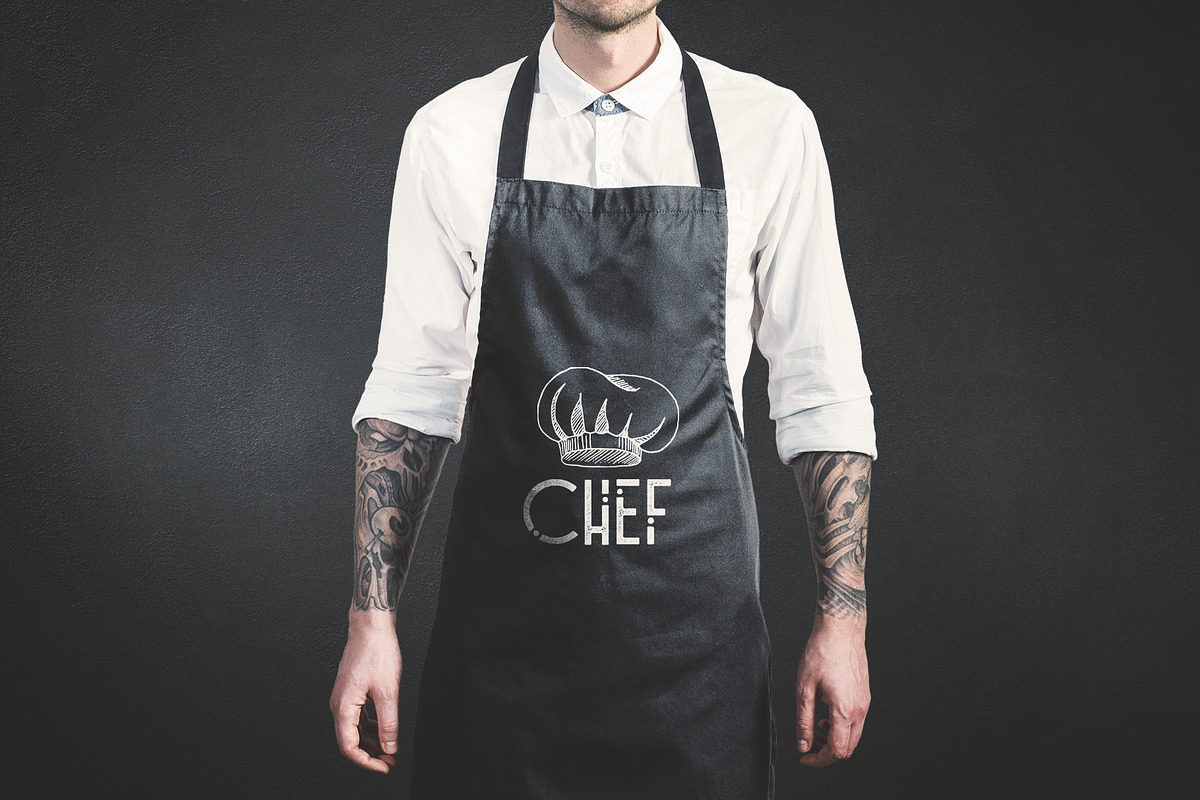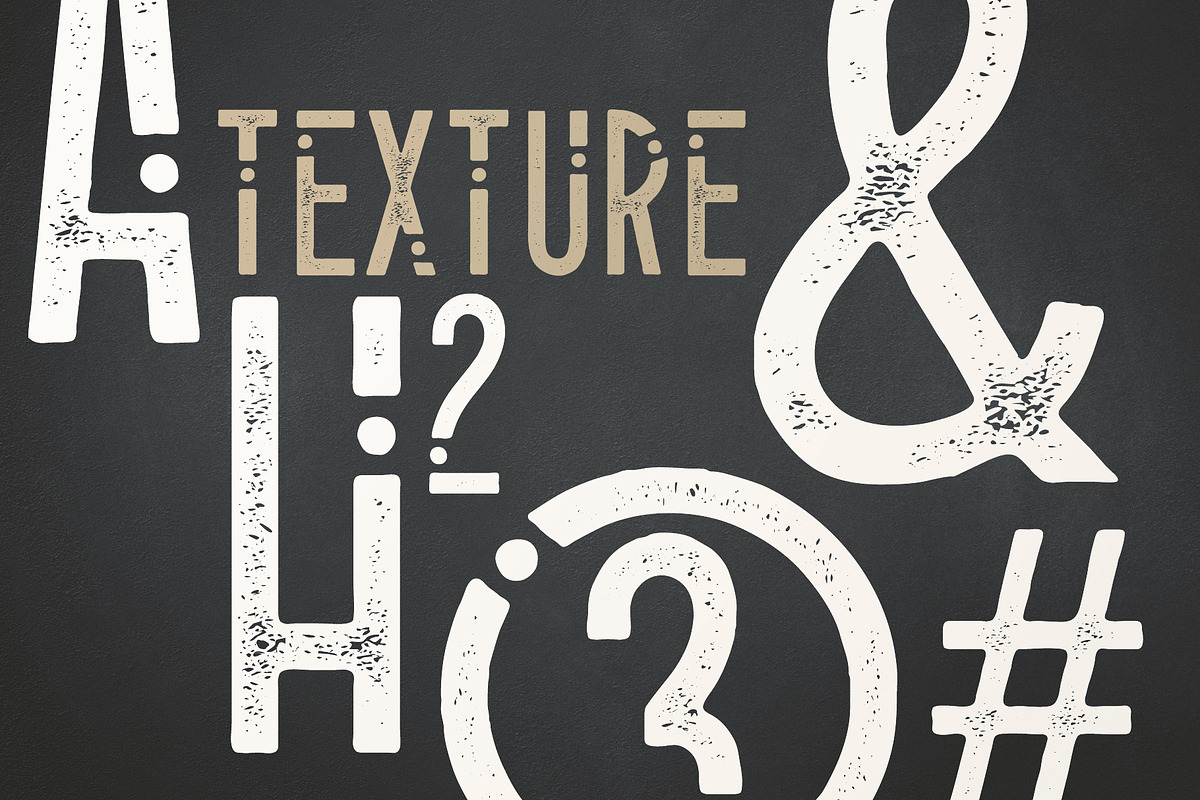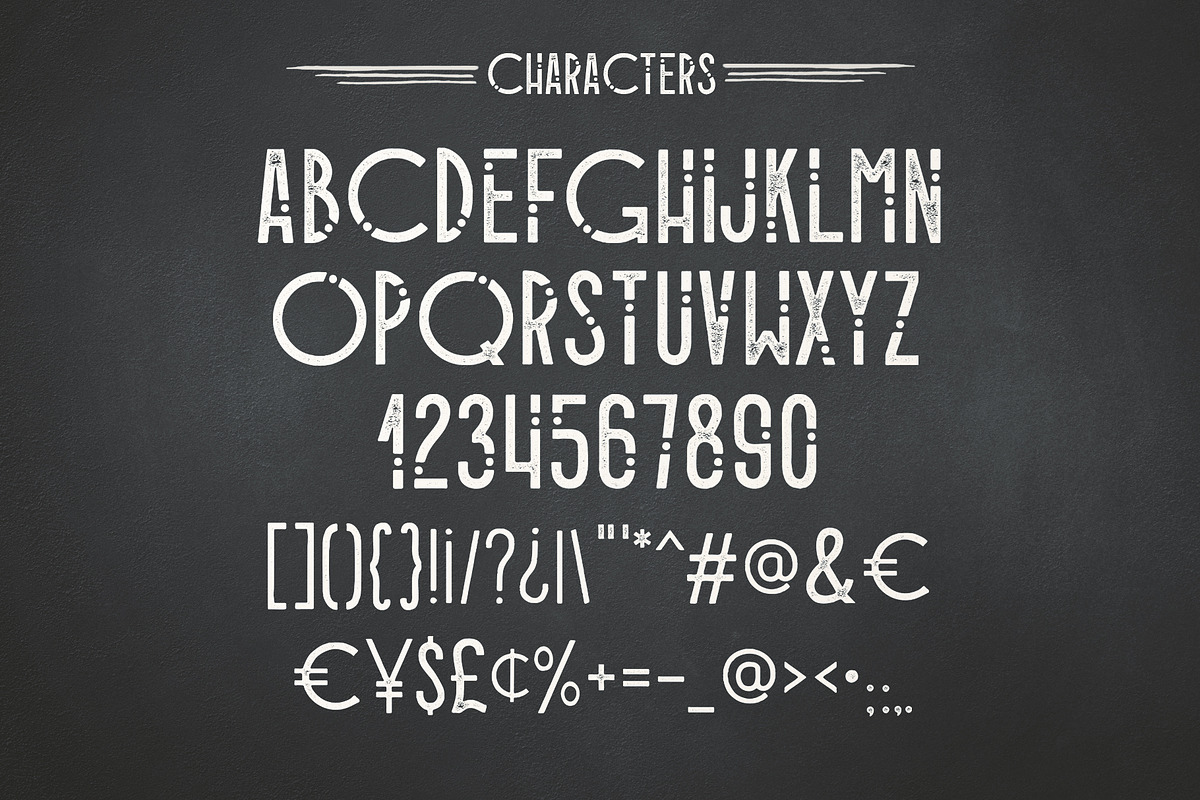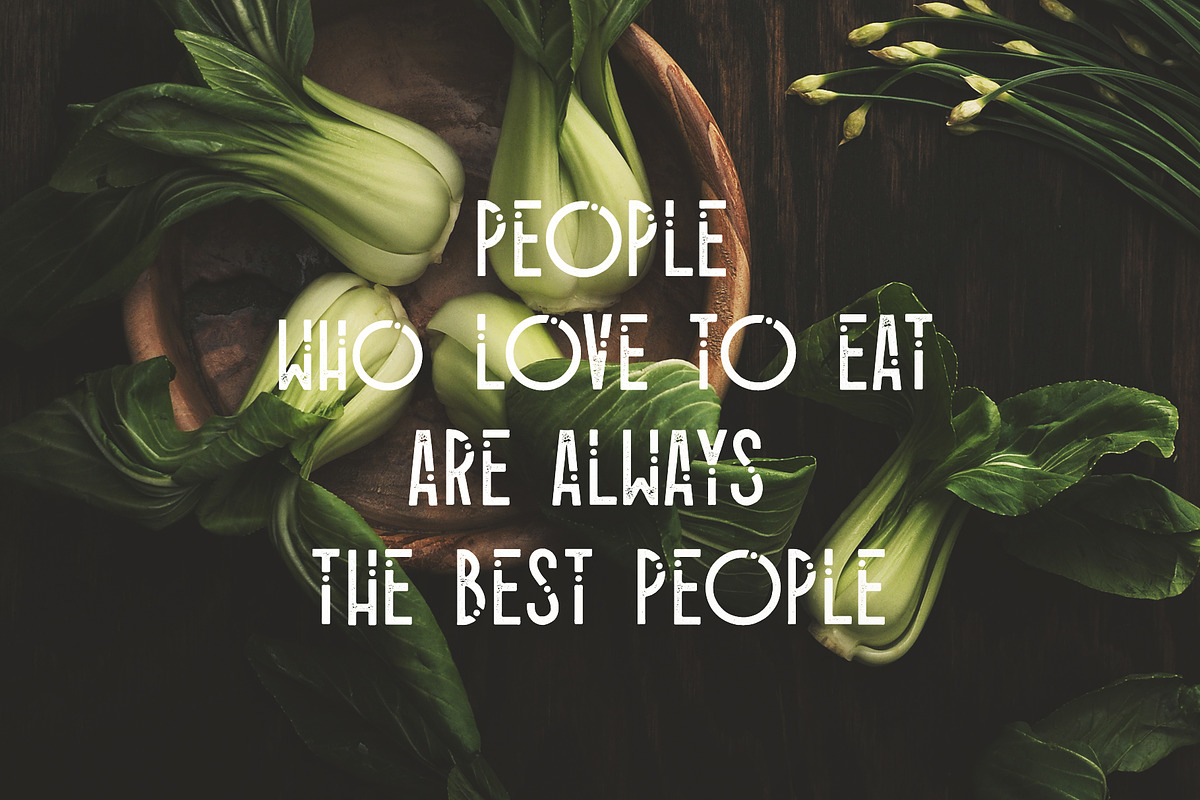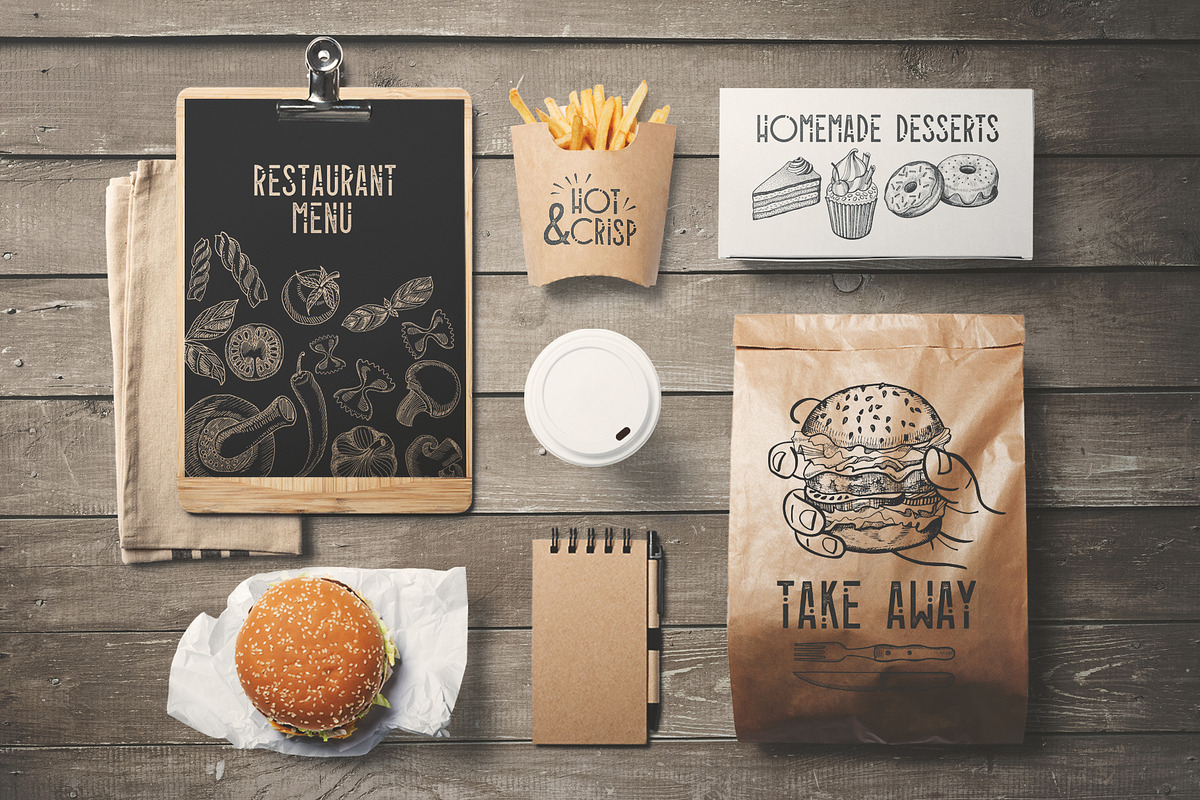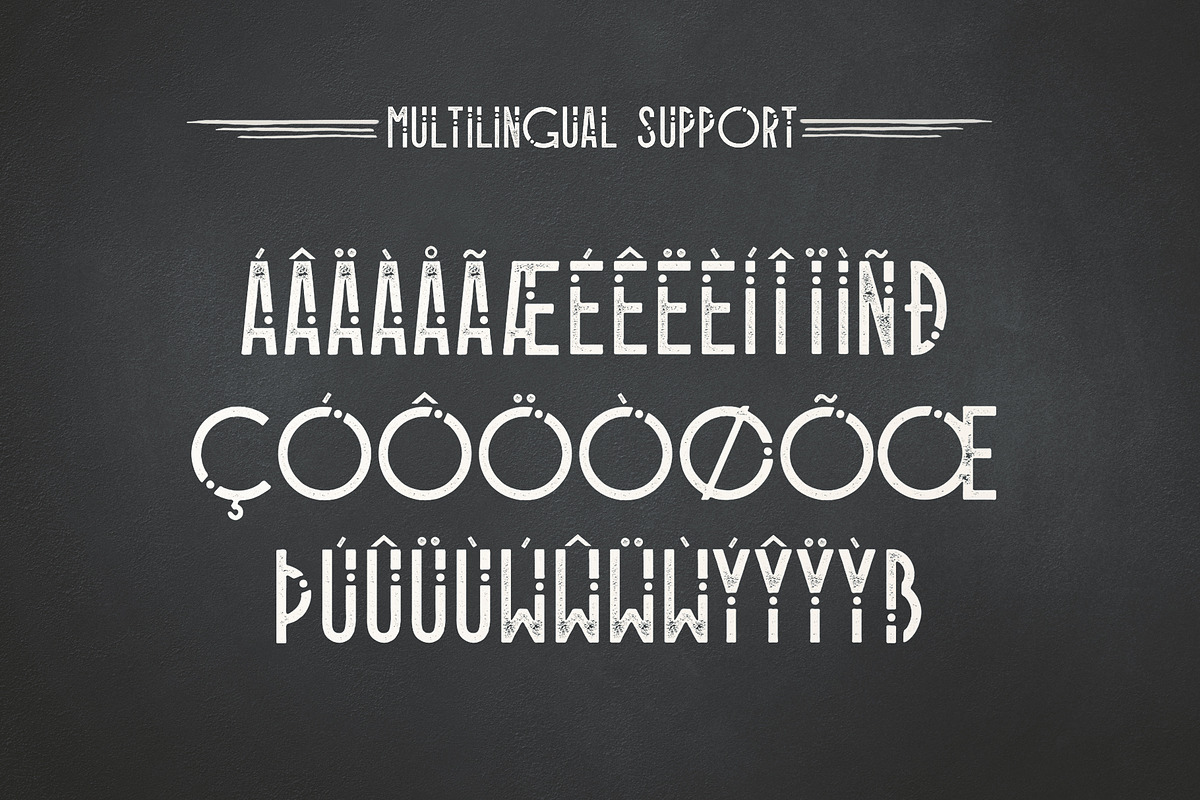
Alioli - Texture Geometric Font
Alioli - a geometric sans serif font consisting of uppercase and lowercase letters, punctuation and numbers. Multilingual support, test non-english characters in the box below.
- Alioli Font Alioli - a geometric sans serif font consisting of uppercase and lowercase letters, punctuation and numbers.
Why Alioli - Texture Geometric Font is worth a look